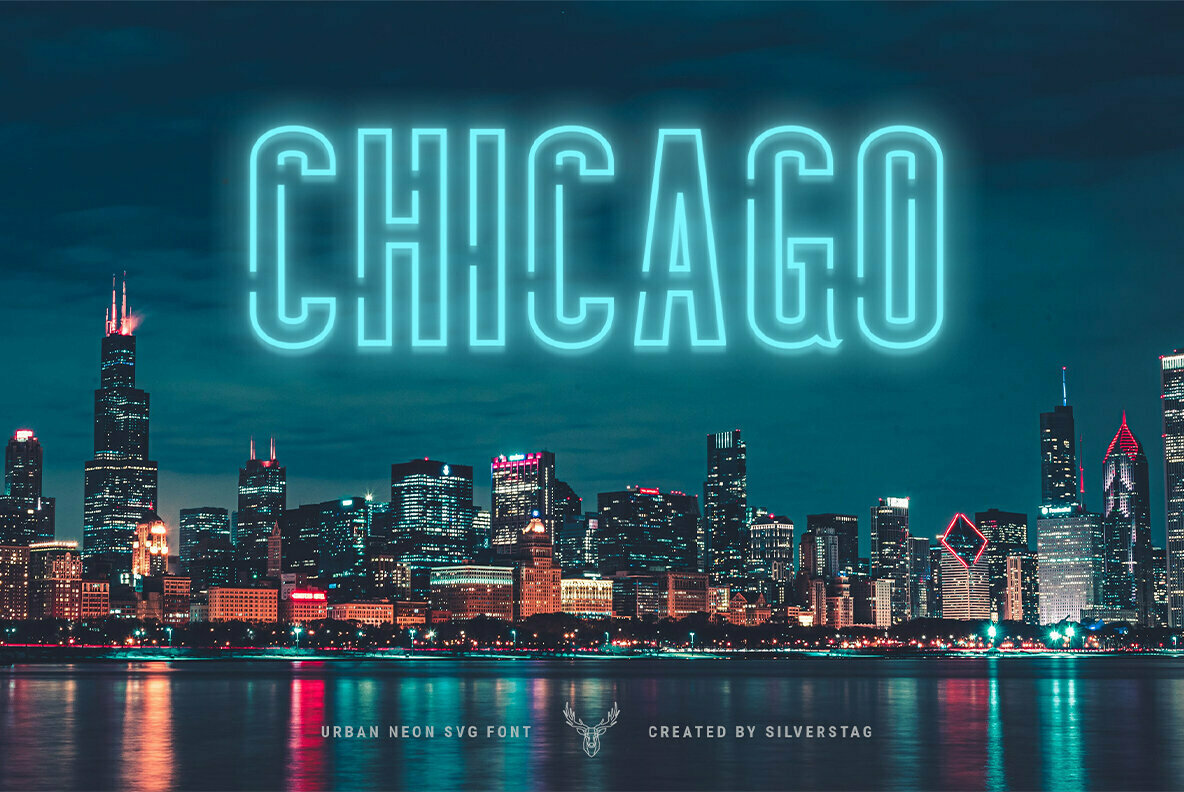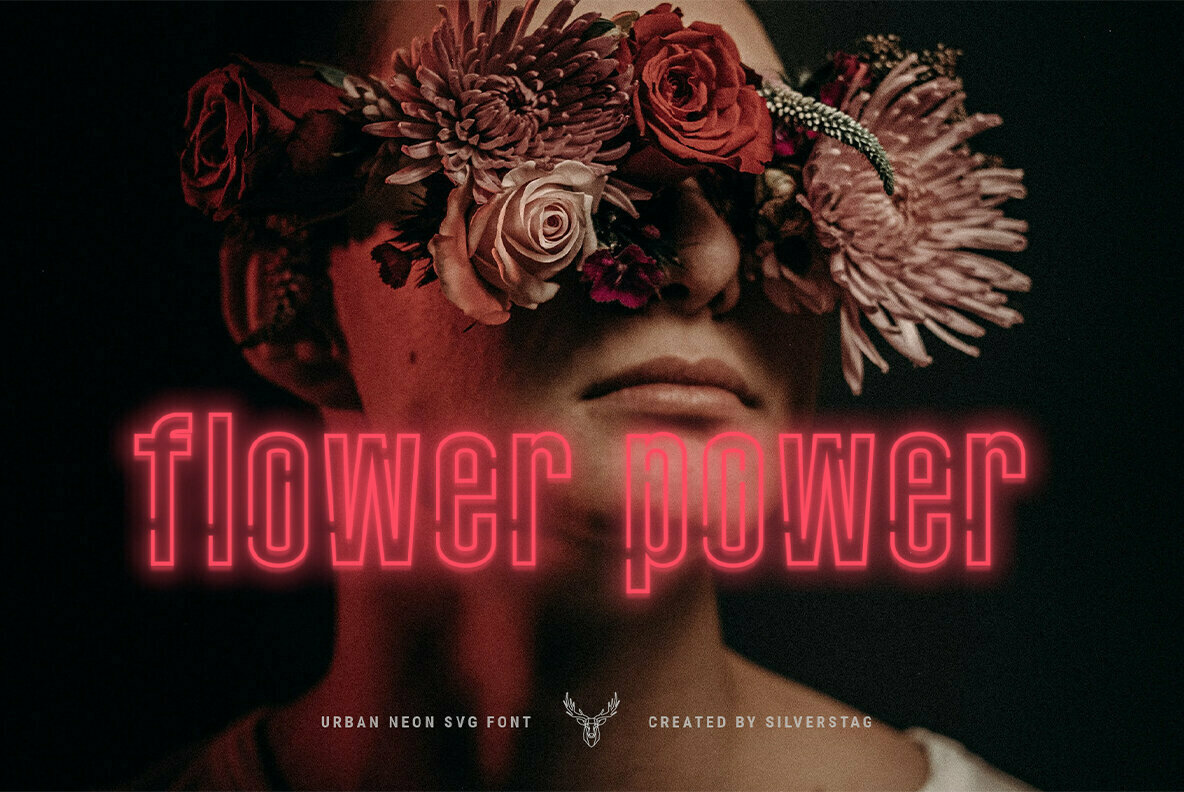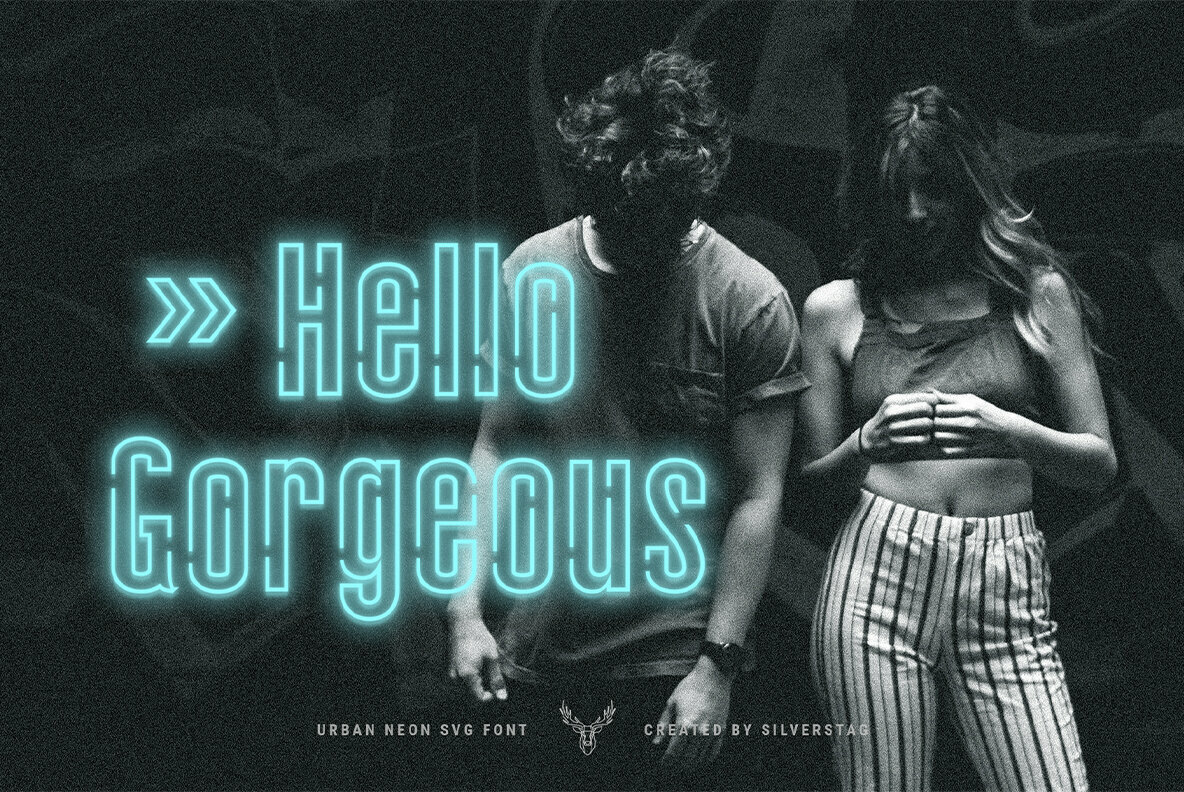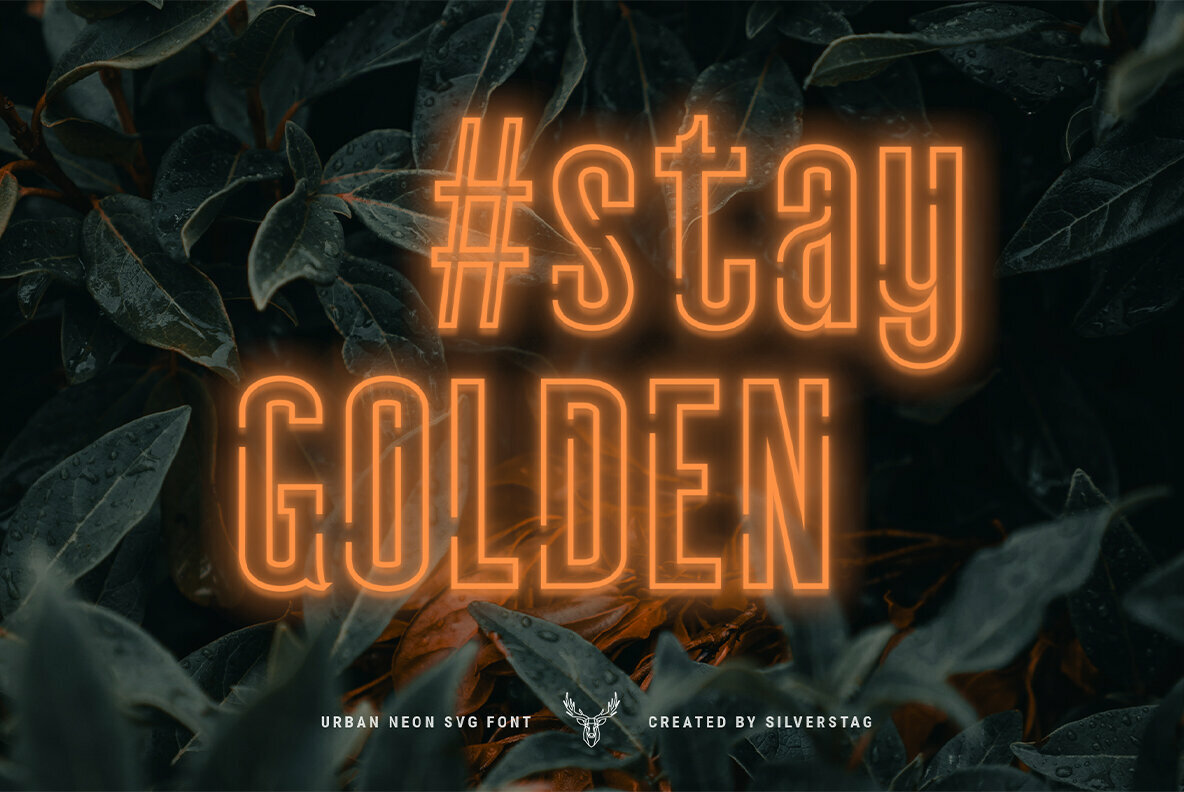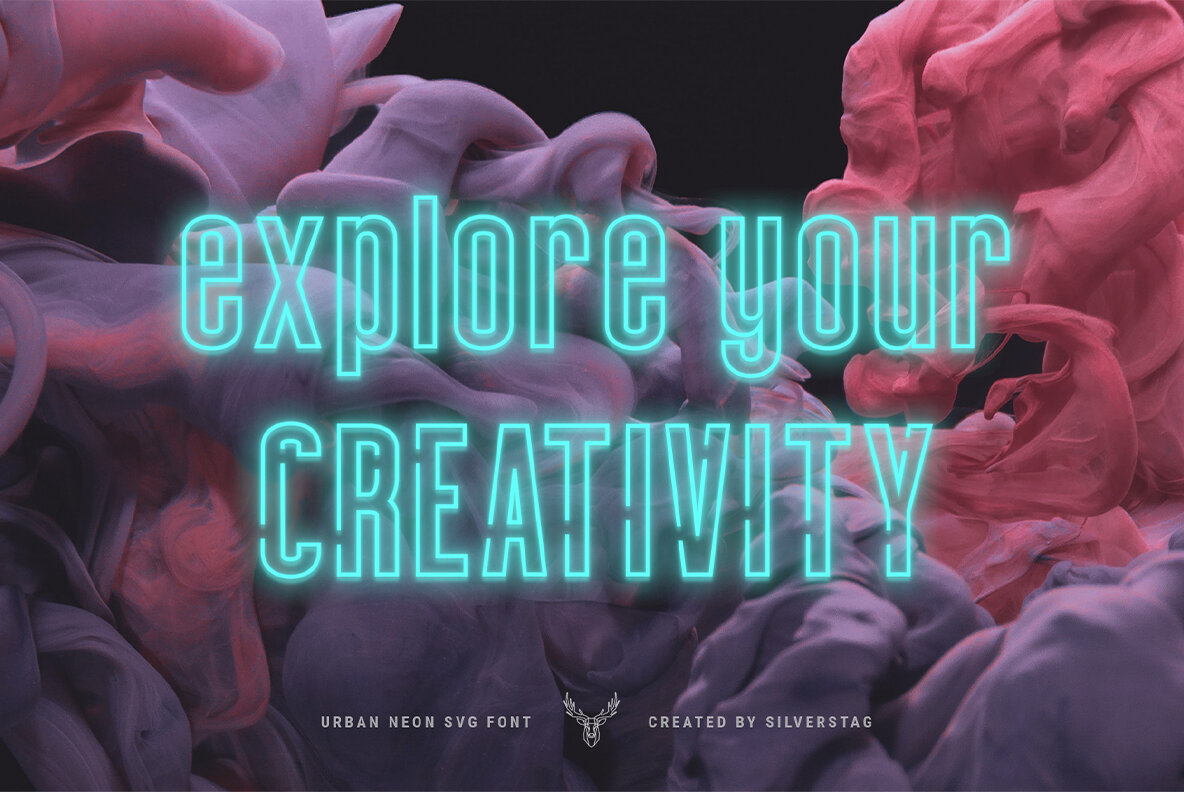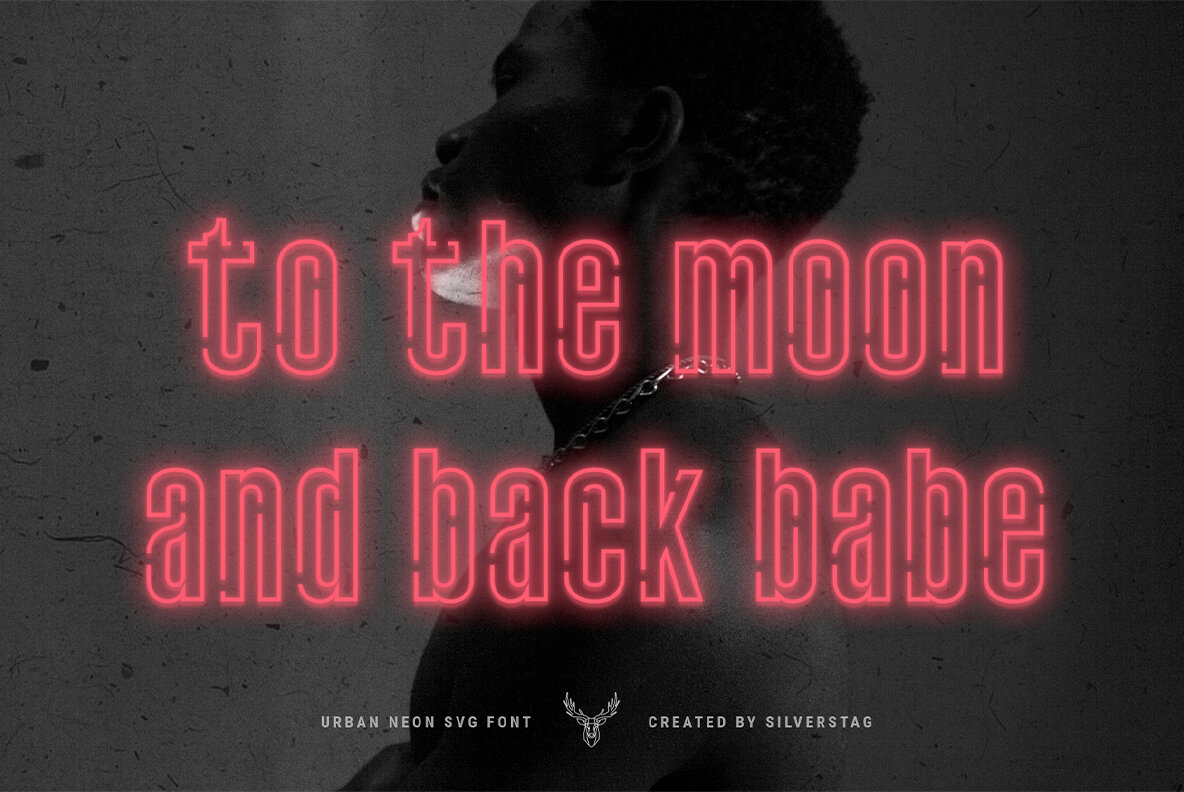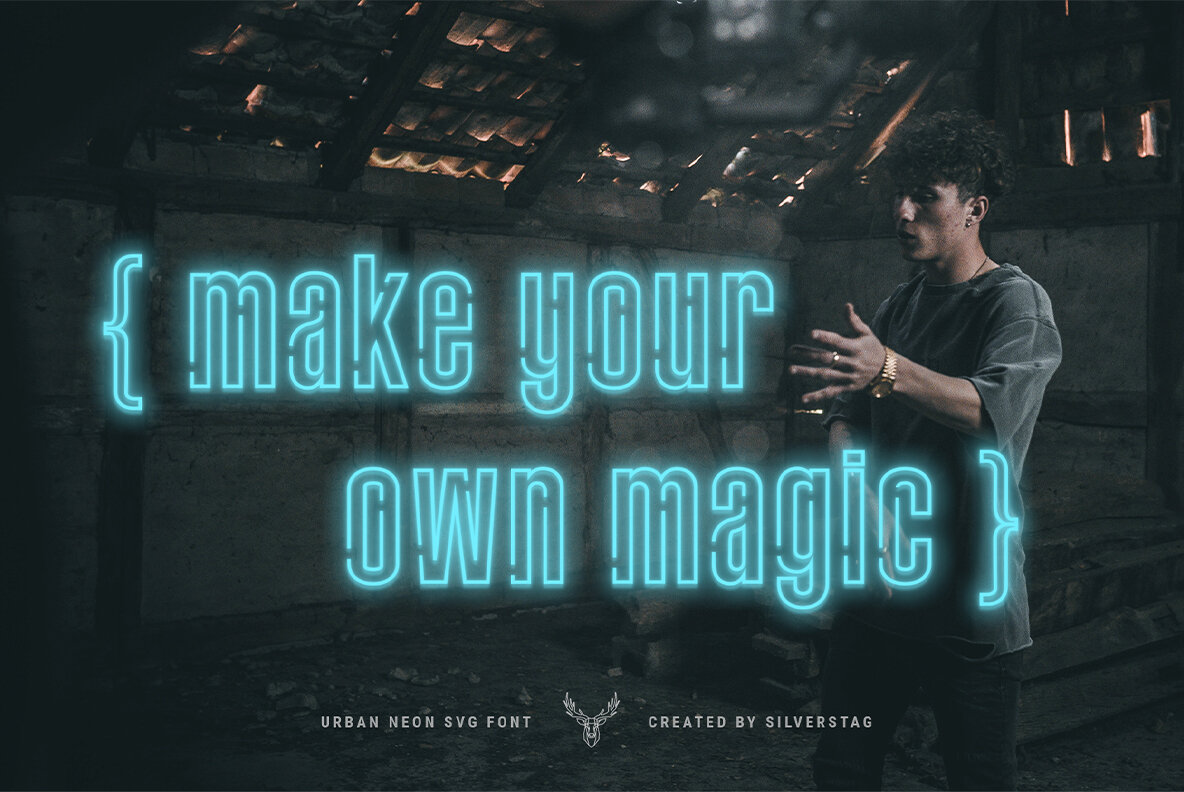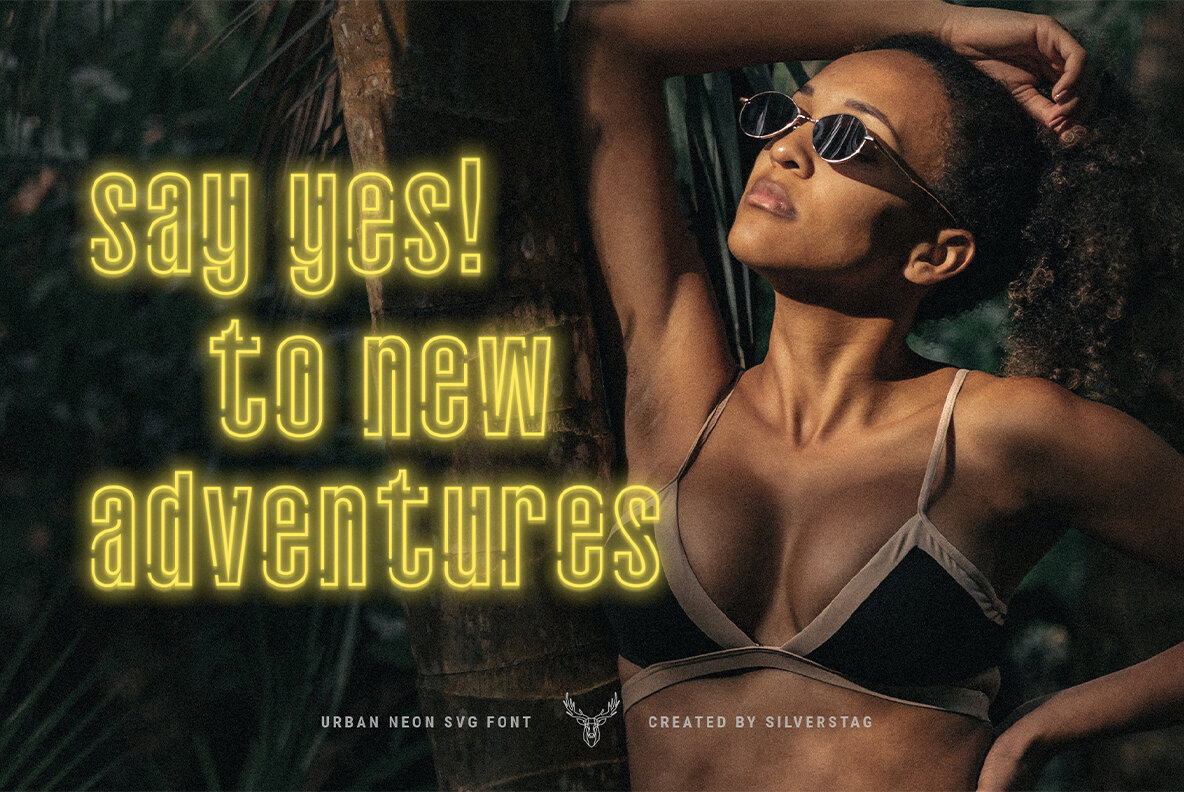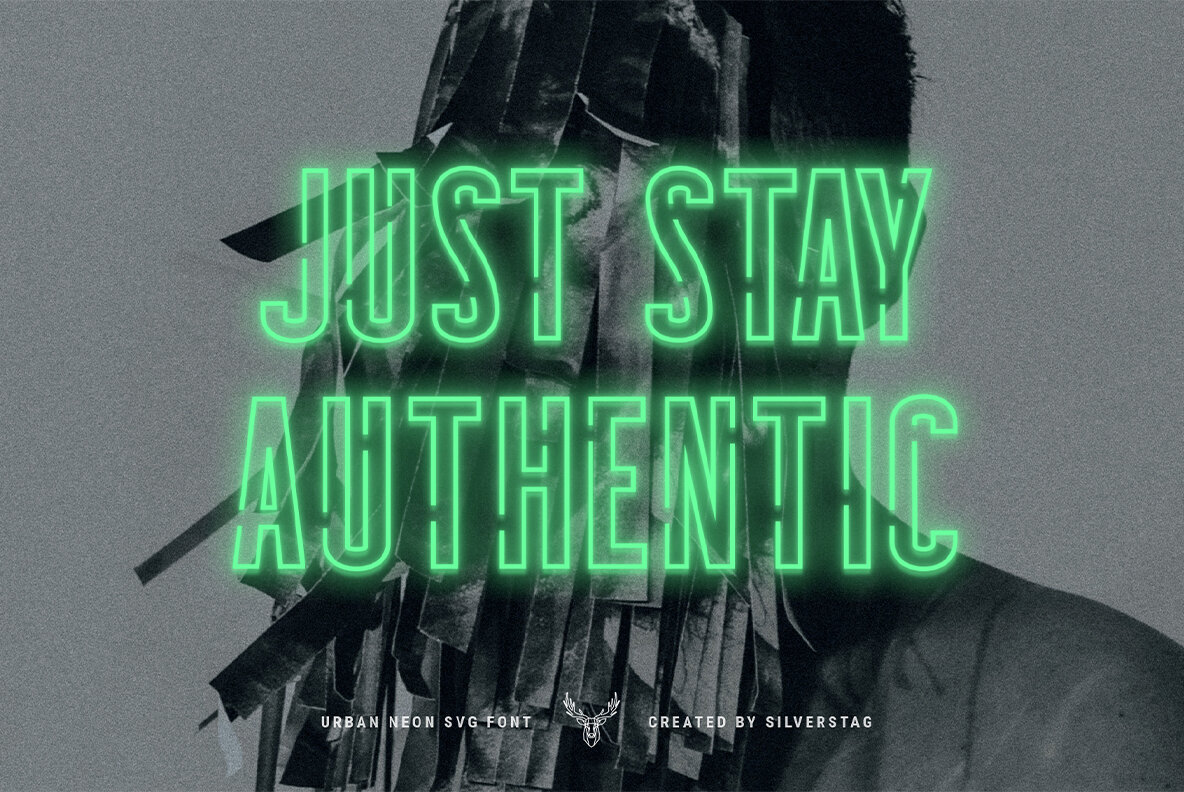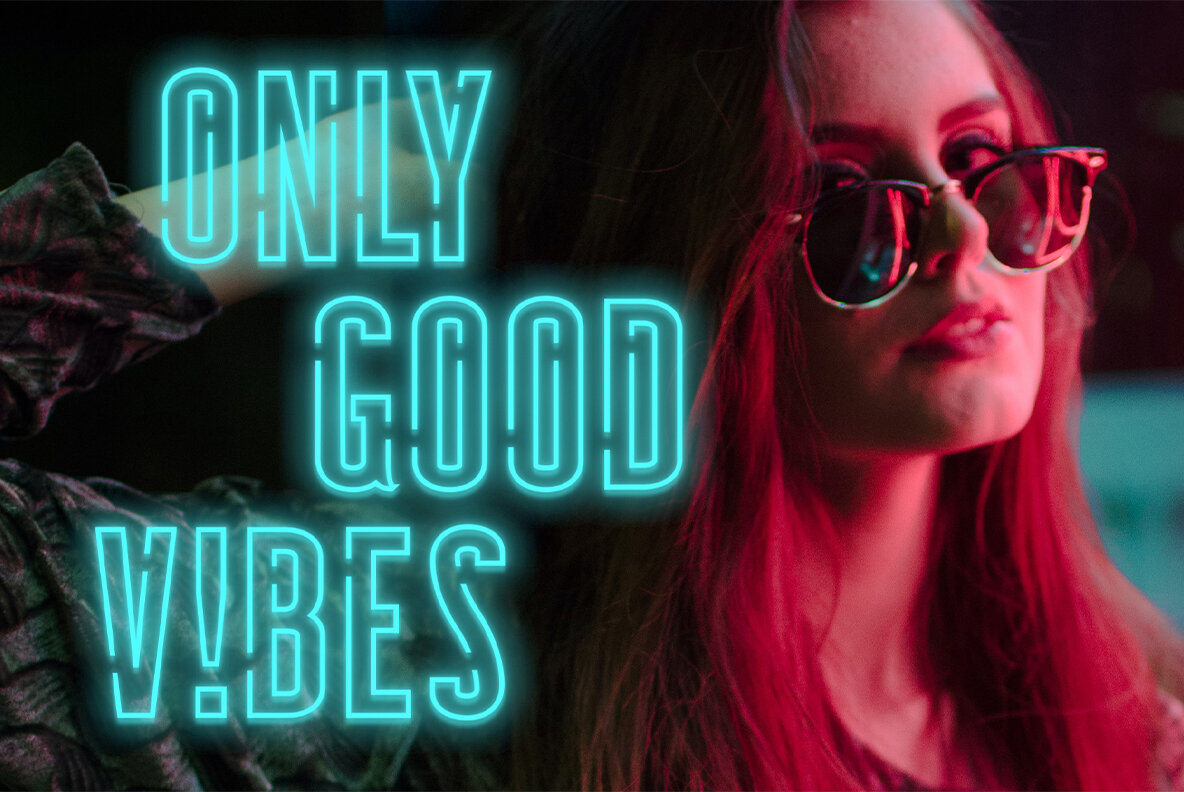
SEVEN NEON SVG Font
Are you guys ready for something completely new and different? Something completely unique and actually the first realistic neon font pack? I have been working for quite some time on this pack and I am super excited to introduce you to the first-ever realistic neon font - at least as far as I could find them :)
In this pack I am offering you 5 fonts, 2 of them are SVG fonts that have the true and fully realistic neon effect you can see on the screenshots above. The other three are standard versions of the SVG fonts that can be used on any computer, in any browser, and in any app.
7EVEN is inspired by amazingly unique and creative neon signs that are all around us these days, from bars, night clubs to chic clothing stores, barber salons, and stylish furniture boutiques. 7EVEN SVG Neon Pack includes 2 SVG fonts, one with regular outlines and the main one with cut lines on different places so every letter is unique and different. It also includes 3 regular fonts (solid, outlined and outlined cut) that can be used on any computer, in any browser, and in any app.